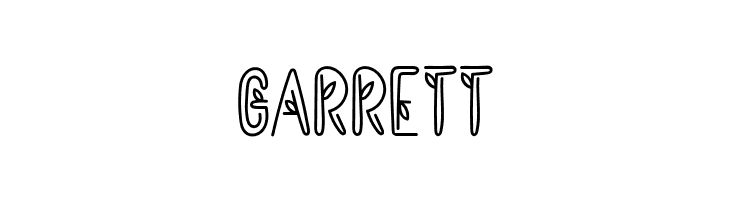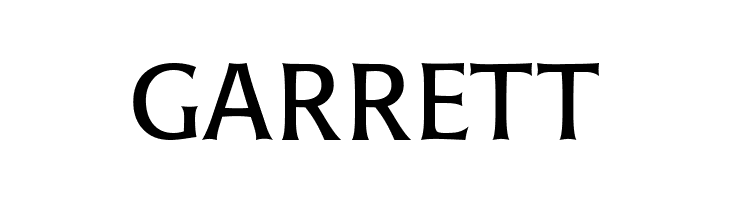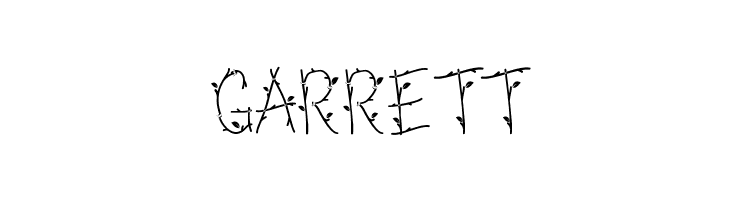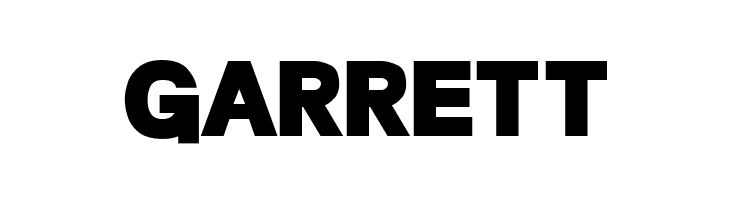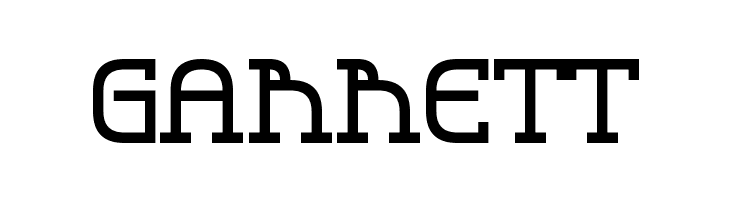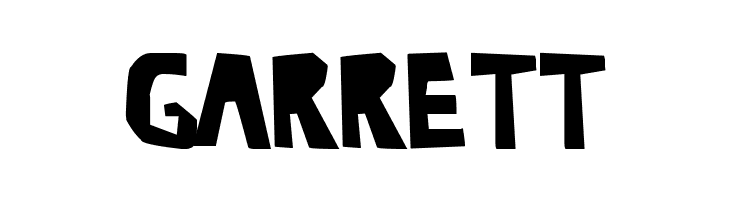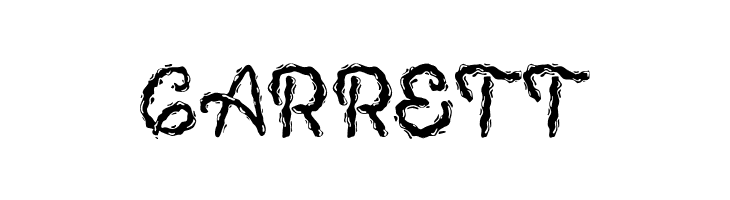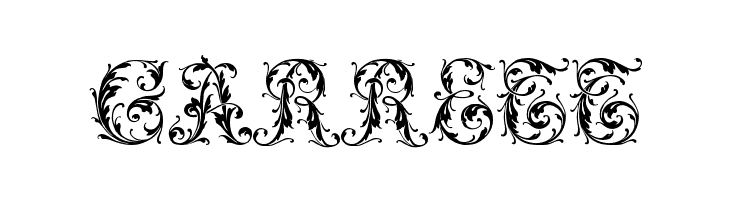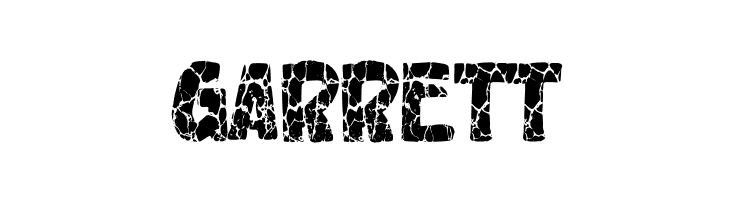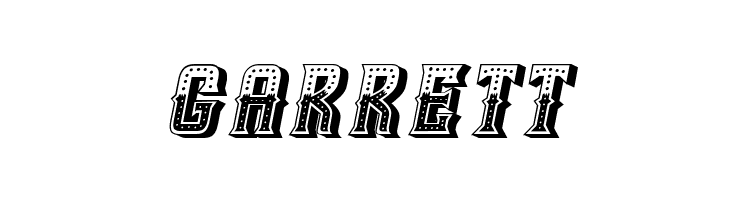
A bold, artistic font with a playful, irregular style.
A whimsical font with characters inside steaming coffee mugs.
A bold, decorative font with a vintage, three-dimensional effect.
A textured, lava-like font with a bold and artistic design.
A bold, textured font with a cracked, stone-like appearance.
A bold, high-contrast font with strong, thick strokes for impactful design.
A playful and jagged font with bold, irregular shapes and dynamic energy.
Hand-drawn, outlined display font with a sketchy, three-dimensional look.
A decorative, nature-inspired font with characters resembling twigs and leaves.
A decorative font with characters resembling twigs and leaves, offering a natural and whimsical style.
A decorative font with characters enclosed in leaf outlines, perfect for nature-themed designs.
A decorative font with characters inside leaf silhouettes, combining nature themes with serif elegance.
A playful, outline-style font with a hand-drawn, whimsical appearance.
A decorative font with geometric shapes and playful curves, blending modern and vintage styles.